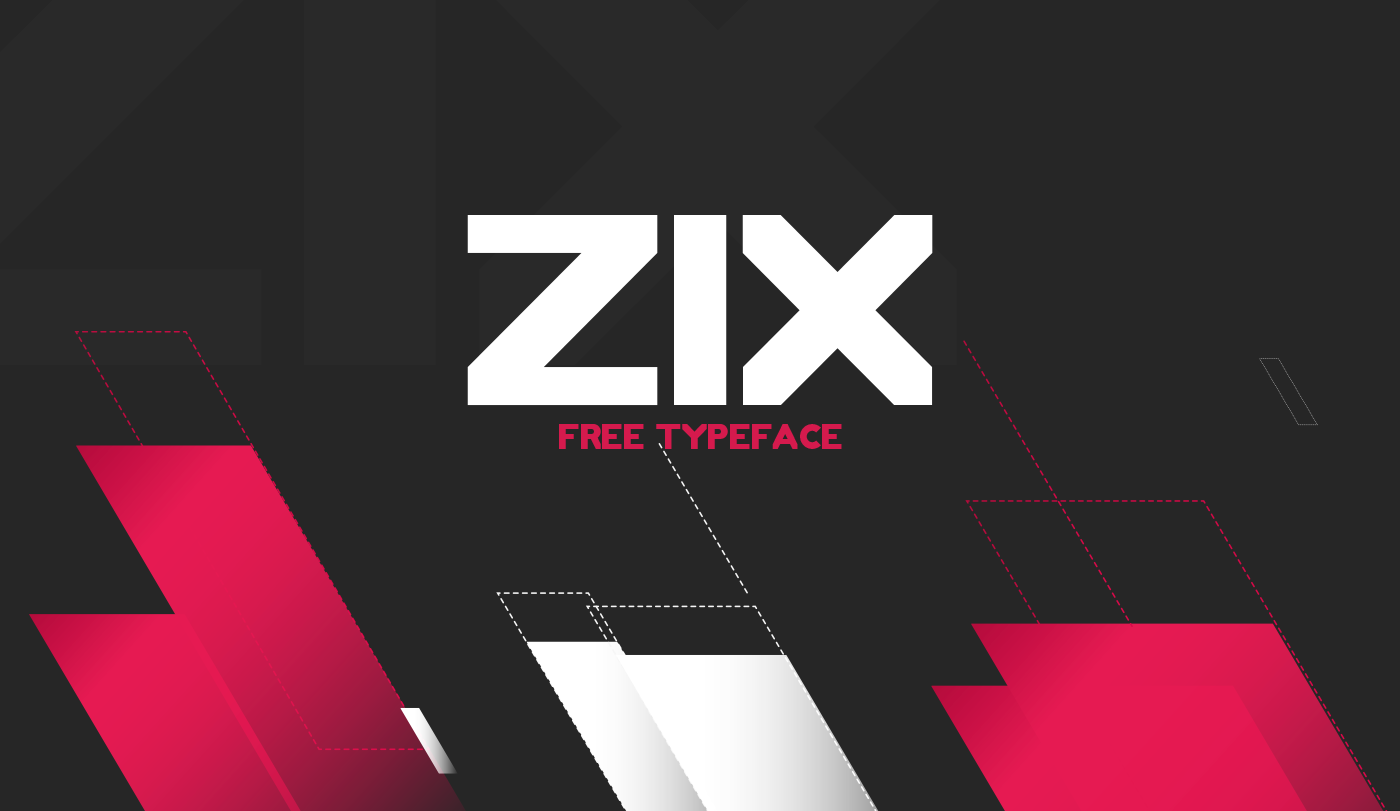
ZIX Typeface
Introduce you a sans serif type of bold to give you many typographic variations for your project. Introducing ZIX Font! It is designed and shared by Bouk’hili Aymen. ZIX is a free bold font. This unique typeface was inspired by He. It has original design. It can make your typography more createful, is great for logos, branding & headlines. ZIX perfect for , poster, logo, magazine, cover, banner, tshirt and headers, or even large-scale artwork.